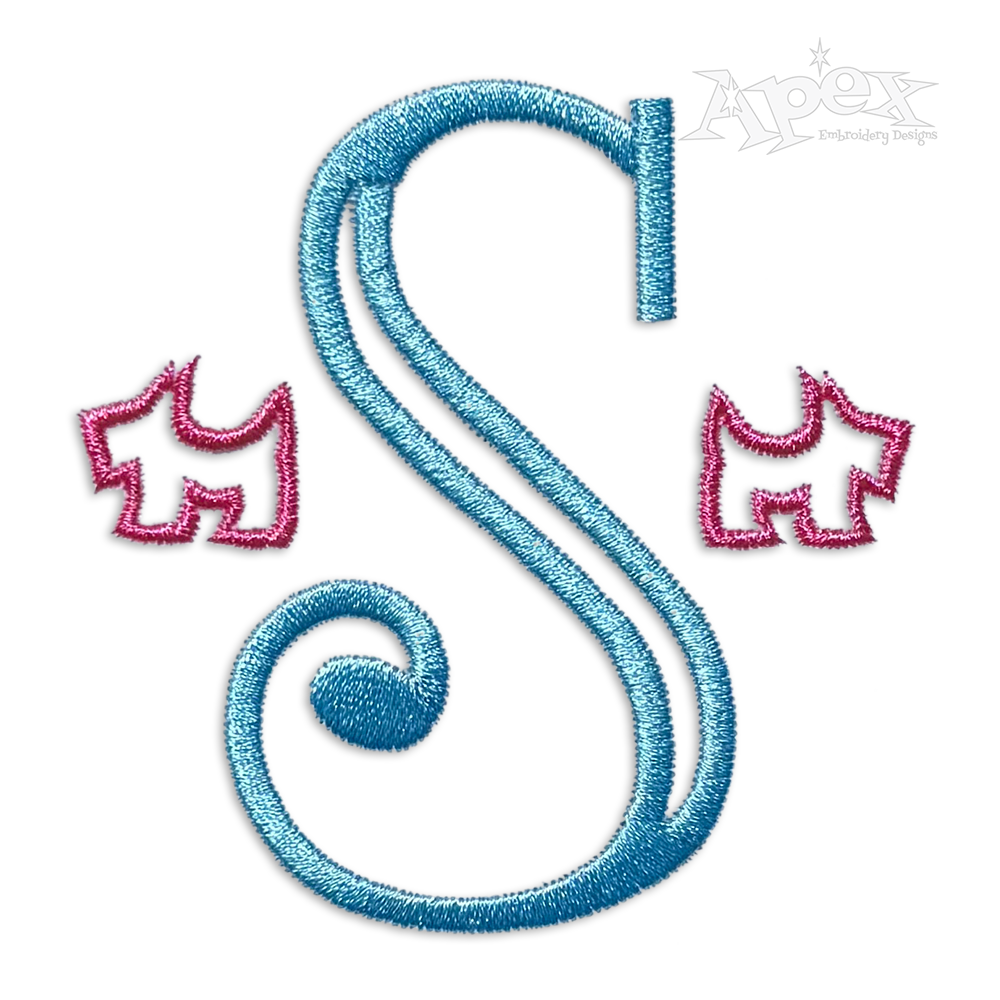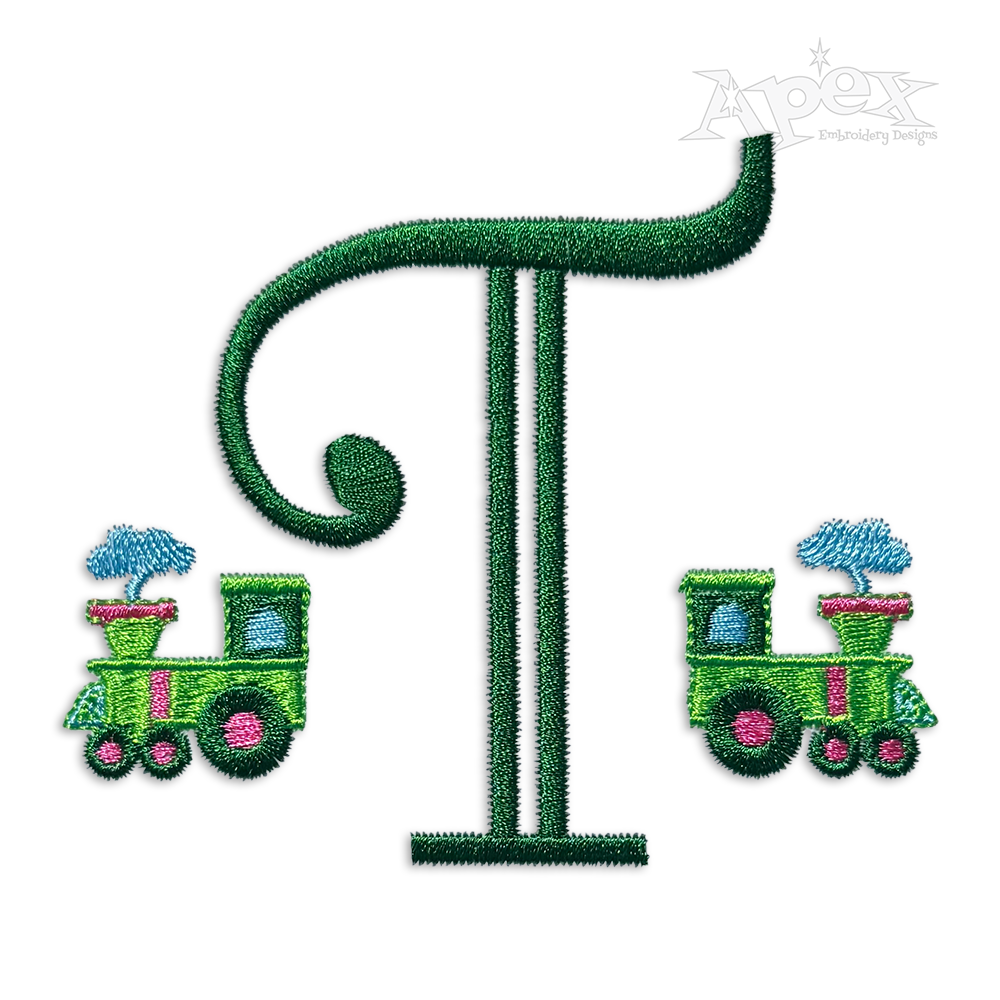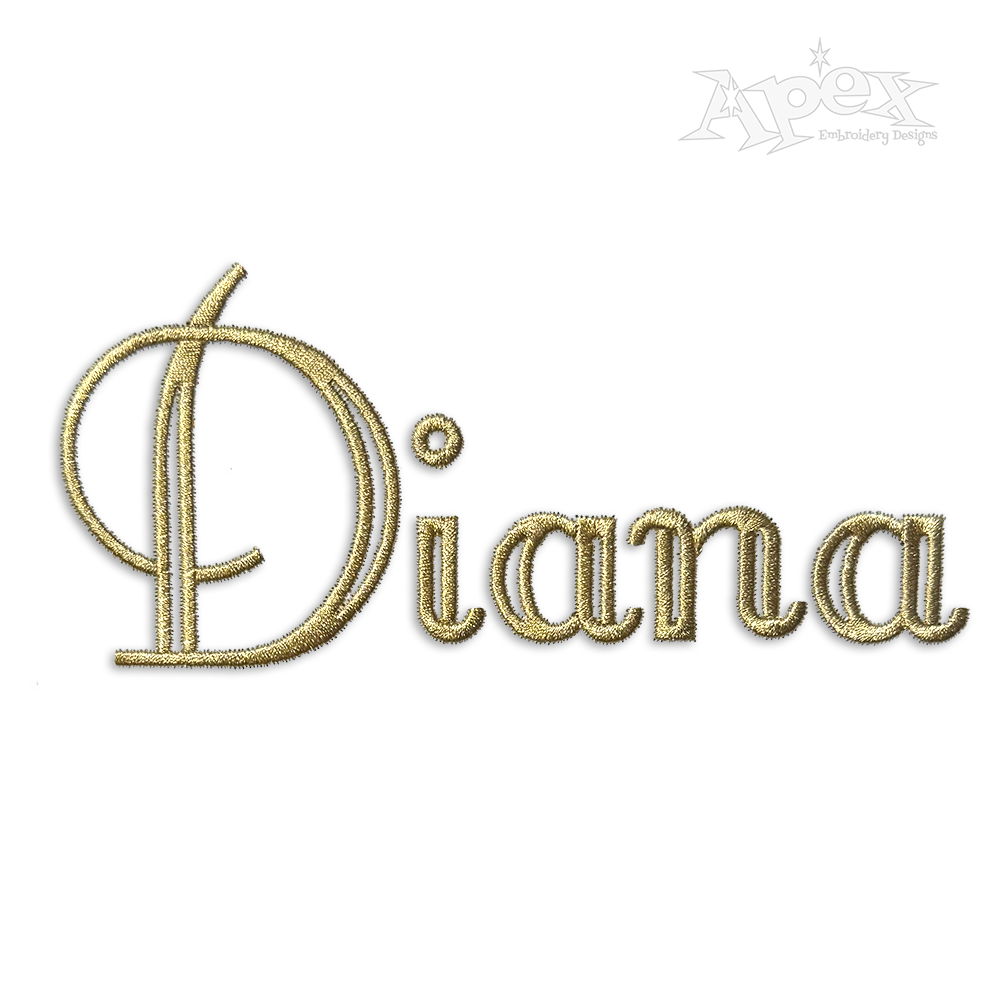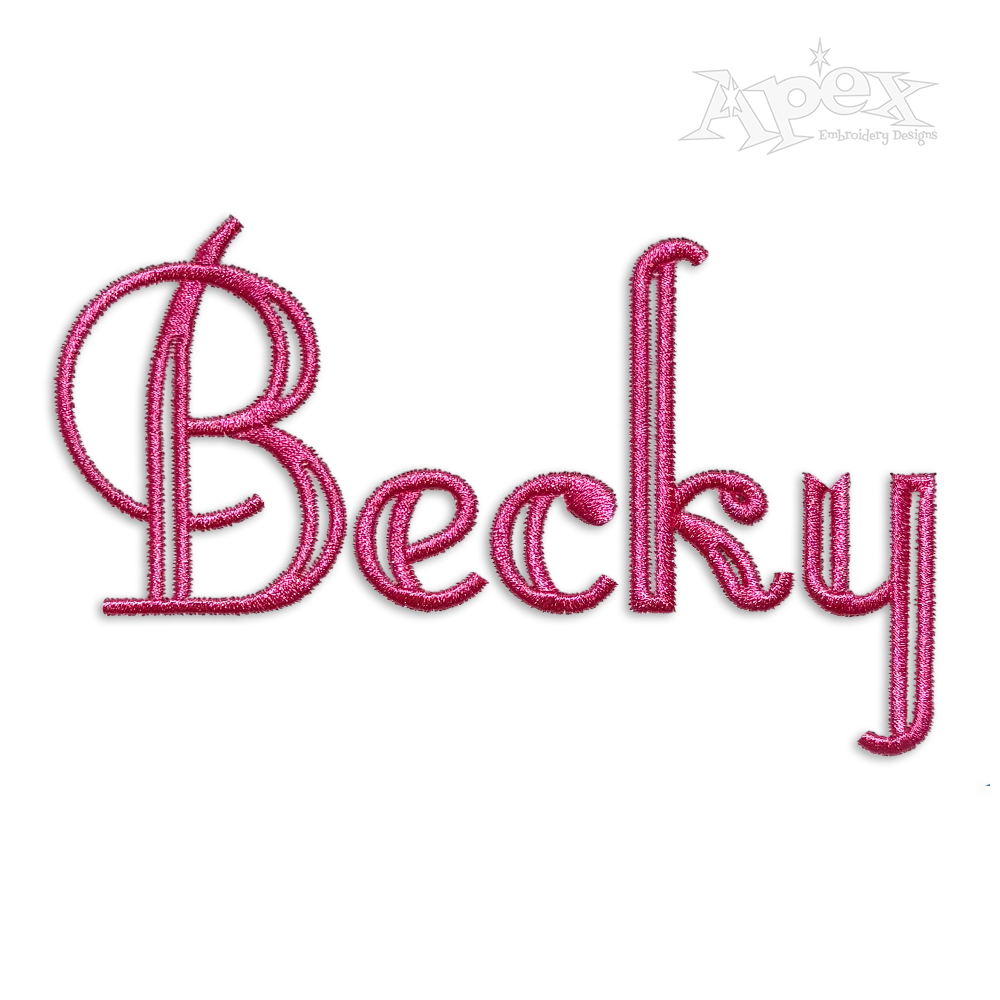
Harris Dub Embroidery Font
There is an enduring, storybook elegance to tailored bespoke monogramming?one that evokes the quiet warmth of classic British nurseries, vintage picture books, and cherished childhood keepsakes. When digitizing the Harris Dub Embroidery Font, our goal was to capture that nostalgic heritage while delivering the flawless, crisp stitch mechanics required for modern personalized gifting. Designed with stately, confident letterforms and accompanied by hand-detailed locomotive and West Highland terrier companion motifs, this set transforms everyday layettes, linens, and accessories into treasured generational heirlooms.
Digitized with meticulous scale-specific density so that every column glides smoothly beneath the needle, the Harris Dub collection includes versatile sizing and delightful accent embroidery:
- Uppercase Alphabet: Included in both 2-inch and 3-inch heights, offering commanding presence as standalone initials or paired monograms.
- Lowercase Alphabet: Digitized at a proportional 2-inch scale to pair seamlessly with the uppercase glyphs for full names and custom phrases.
- Artisan Accent Designs: Includes two beautifully digitized companion motifs?a vintage Steam Train and an adorable Westie Dog?crafted to accent names or stand alone as sweet decorative emblems.
Project Ideas for Harris Dub
The stately yet whimsical personality of this satin stitch alphabet makes it a favorite for upscale childrenswear and classic gift-giving projects:
- Heirloom Nursery Quilts & Blankets: Anchor a soft piqu? blanket or cashmere baby throw with a centered 3-inch initial flanked by the embroidered steam train.
- Tailored Knit Cardigans & Rompers: Personalize bespoke knitwear or a classic cotton Peter Pan collar with a single chest monogram or full name.
- Personalized Canvas Totes & Duffles: Add a sturdy monogram and the jaunty Westie dog accent to children's overnight bags, book satchels, or diaper bags.
- Keepsake Reading Pillows: Embroider a child's name across a linen nursery cushion, completing the storybook aesthetic with the companion accents.
- Holiday & Birthday Keepsakes: Create commemorative milestone banners, personalized stocking cuffs, or luxury birthday gift bags that can be kept for years to come.
Harris Dub carries exceptional visual balance across a range of applications, adapting gracefully depending on how you arrange the lettering and accent motifs:
- Center Chest Placement: Position a 2-inch or 3-inch initial dead center on a sweater or romper, positioning the train or Westie motif nestled just below the baseline or hovering alongside the letter.
- Diagonal Corner Framing: When stitching heirloom blankets or oversized cloth swaddles, rotate your composition 45 degrees into the lower corner, placing the monogram 3 to 4 inches from the outer edge.
- Straight Collar & Yoke Alignment: For traditional children's wear, align lowercase lettering along the center chest or along the hem of a yoke for an understated, classic monogrammed look.
- Above-Pocket Accents: On canvas backpacks or children's jackets, place the lettering directly centered above pocket seams, allowing the structural columns to pop cleanly against heavier fabrics.
Harris Dub Craft & Letterform Details
True embroidery excellence lies in the balance between thread tension, pathing, and architectural structure. The Harris Dub letterforms feature bold, authoritative stems balanced by clean, softly rounded terminals that prevent thread bunching while catching the light with luminous satin sheen. Every letter is constructed with multi-layered underlay?beginning with stabilizing edge runs followed by directional zig-zag lattice?ensuring that the satin stitches sit raised and proud above the textile nap without sinking or pulling.
The companion motifs receive the exact same artisan digitizing care: the Westie dog features carefully layered contour stitching to mimic the texture of a terrier's coat without creating dense bulletproof patches, while the vintage train features crisp running-stitch details and clean satin fills that stitch out cleanly and quickly. From the precise travel paths that minimize unnecessary jump stitches to the tailored pull compensation applied across every curve, Harris Dub is digitized to deliver an effortless, professional finish on your embroidery machine from the very first stitch to the last.